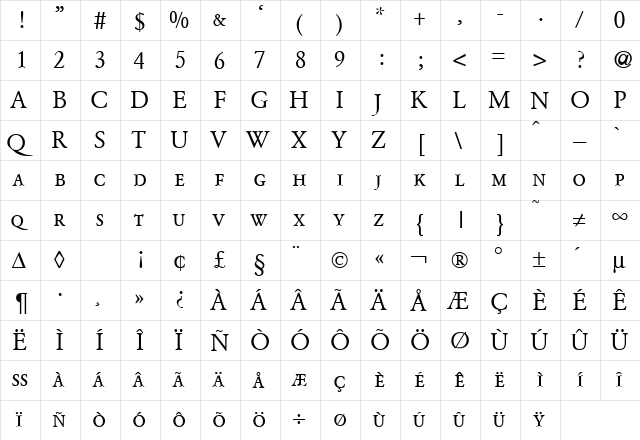
ClassicGaramondSmc Regular
ClassicGaramondSmc has the warm character of retro typography — evoking diners, record sleeves, and the golden age of print advertising.
Font Pairing: Combine ClassicGaramondSmc with a simple slab or neutral sans — period-accurate companions reinforce the vintage feel without competing for attention.
Pro Tip: Lean into ClassicGaramondSmc's period character by pairing it with aged paper textures, muted colour palettes, and vintage illustration styles.